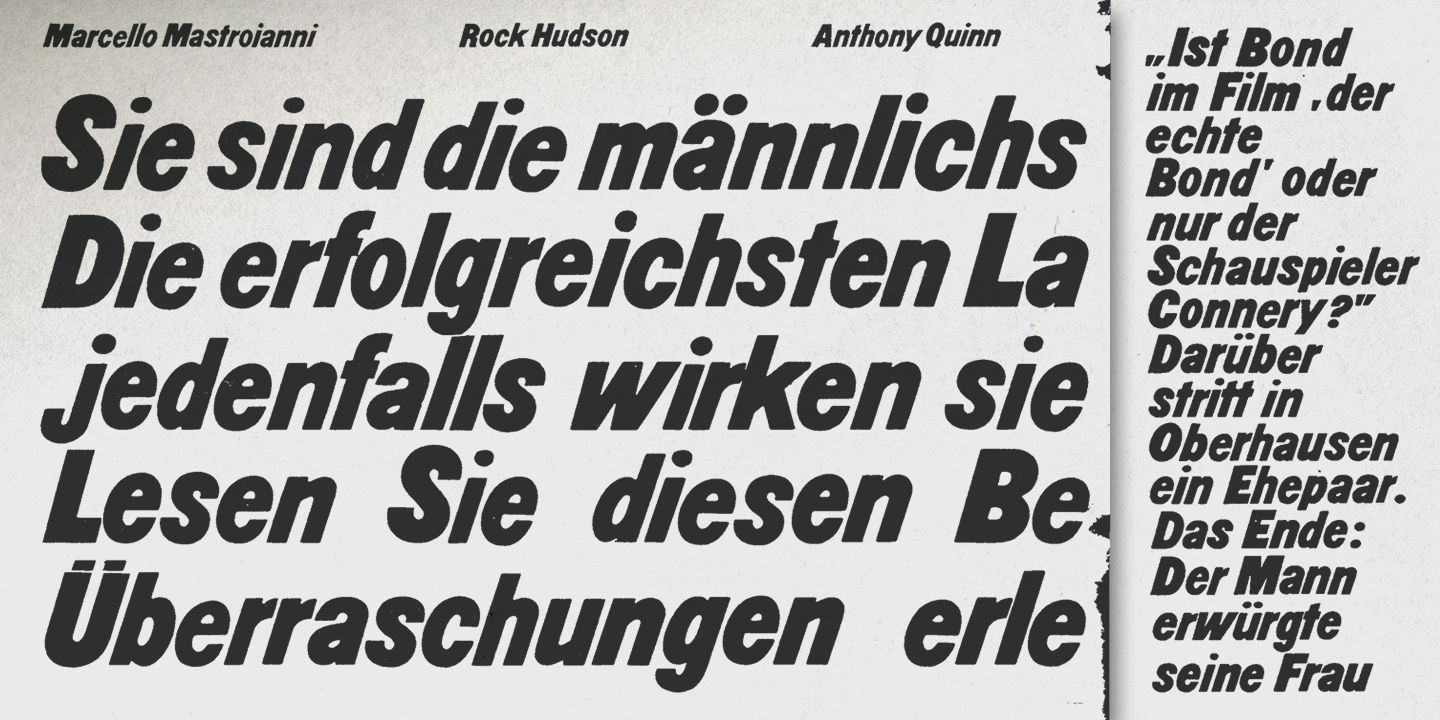
Found in an old German magazine from the 60s and digitized into a typeface. The original typeface was used as a headline font for an article about the upcoming James Bond movie 'Thunderball'. It has a very limited character set, so, don’t spend too many words for writing.
The writing on the right side means: “Is Bond in the film, the real Bond or just the actor Connery?” A couple argued about this in Oberhausen. The end: The man strangled his wife.